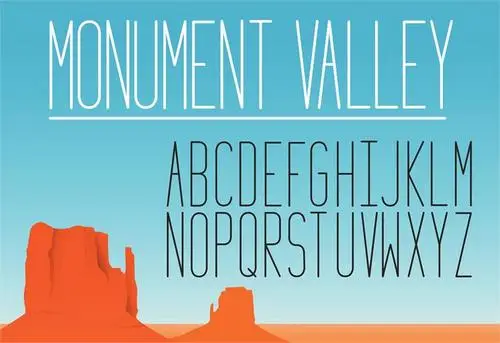
Monument Valley 1 2 Font
The Monument Valley 1 2 Font is a beautifully crafted typeface inspired by the iconic visuals of the popular game. This font captures the essence of geometric shapes and minimalistic design, making it perfect for various creative projects.
• Stylish geometric design